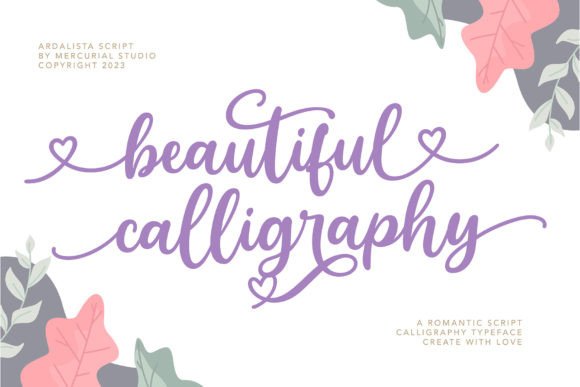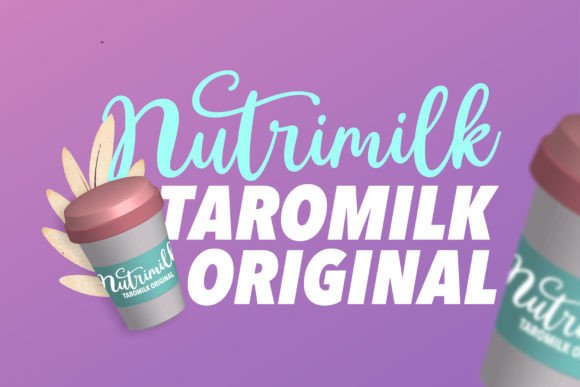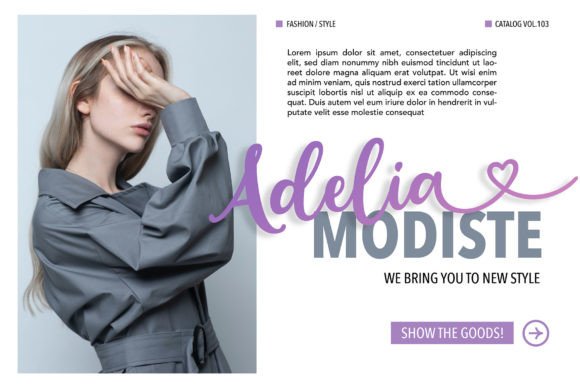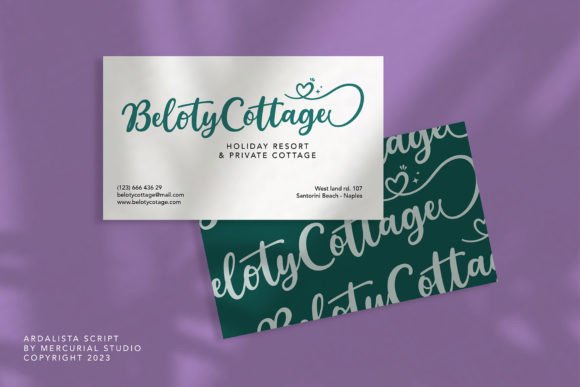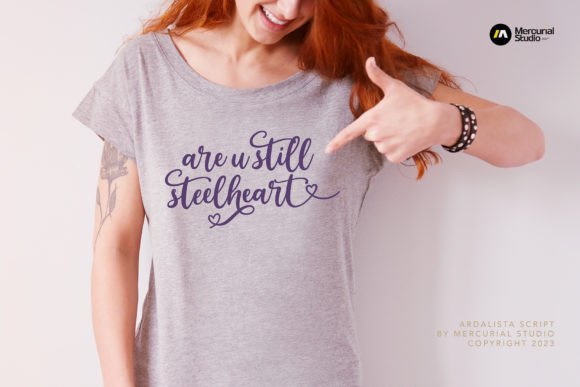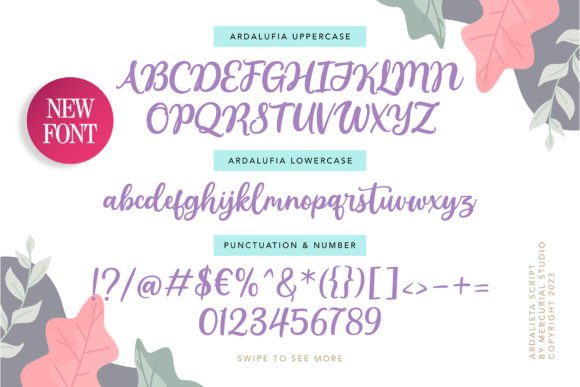
Unlocking the Art of Beautiful Design with Ardalista Font
Have you ever stared at a blank page, trying to bring your creative vision to life, only to be stumped by the perfect font? The one that captures the essence of your message, elevating it from ordinary to extraordinary? This is where the Ardalista Font comes in – a lovely script calligraphy that adds a touch of sweetness and charm to any design.
Designed to make a lasting impression, Ardalista Font is perfect for crafting beautiful invitations, greeting cards, wedding invitations, and branding materials. Its charming typeface and extra letters give designers the freedom to be creative and express themselves in unique ways. With its Opentype features and PUA unicode, Ardalista Font is a valuable tool for designers looking to take their designs to the next level.
- Unique Characteristics: Elegant, cursive, and connected script font with a sophisticated and luxurious feel
Ardalista Font Review
I recently had the chance to work with the Ardalista Font, and I must say it’s an interesting choice. Here’s my honest review.
- Unique aesthetic: Ardalista Font has a distinct, hand-drawn feel that can add a touch of personality to your designs.
- Legibility: Despite its handwritten appearance, the font is surprisingly easy to read, making it suitable for body text.
- Variety of weights: The font comes in multiple weights, from light to bold, which can be useful for creating visual hierarchy.
- Limited character set: The font is missing some common characters, such as accented letters, which can be a problem for designers working with languages that require them.
- Not suitable for small text: The font’s unique style can make it difficult to read at small sizes, which may limit its use in certain applications.
Overall, Ardalista Font is an interesting choice for designers looking to add some personality to their work. While it has its limitations, it can be a great option for projects where a unique, handwritten feel is desired. Just be aware of its limitations and use it accordingly.
Ardalista Font is ideal for creative projects that require a unique and elegant touch. Use it for:
- Branding and logo designs.
- Artistic posters and prints.
- High-end business presentations.
Remember to use Ardalista Font in moderation, as it can be quite dramatic. Pair it with other fonts to create a balanced and visually appealing design.
Alternatives to Ardalista Font
Playfair Display is a luxurious and elegant serif font, perfect for high-end branding, advertising, and editorial designs. It features intricate details and flourishes, making it ideal for creating a sophisticated and refined atmosphere.
Comparison to Ardalista Font: While Ardalista Font has a similar elegant feel, Playfair Display is more ornate and luxurious. Ardalista Font is more versatile and can be used in a wider range of designs, whereas Playfair Display is best suited for high-end and premium designs.
Lato is a modern sans-serif font that is highly legible and versatile. It is perfect for corporate branding, websites, and digital designs where a clean and professional look is required.
Comparison to Ardalista Font: Lato is a more minimalist and modern font compared to Ardalista Font. While Ardalista Font has a more elegant feel, Lato is more functional and easy to read. Lato is also more suitable for digital designs and corporate branding, whereas Ardalista Font is more suited for print designs and high-end branding.
Merriweather is a classic serif font that is highly legible and elegant. It is perfect for book designs, academic papers, and other print materials where a traditional and sophisticated look is required.